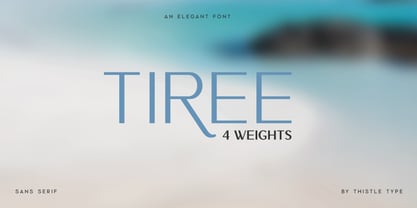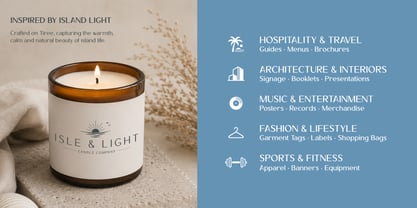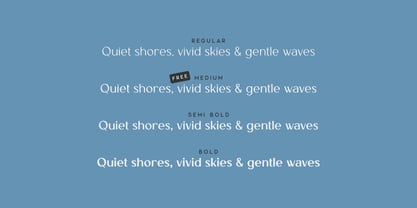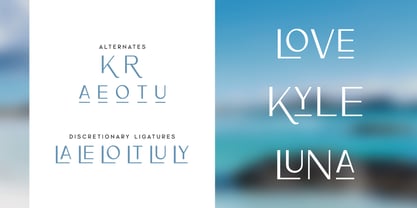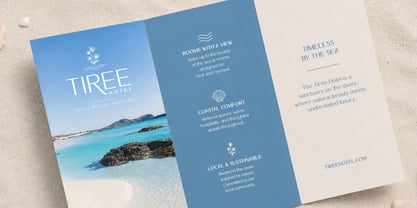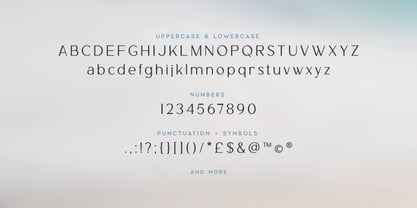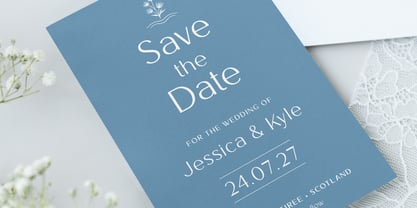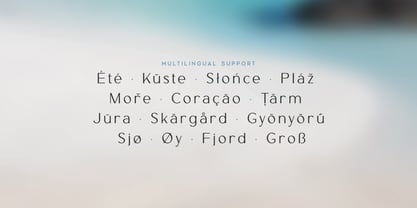
Tiree
Tiree is an elegant san serif font inspired by the white beaches and wide open skies of Scotland’s western isles. Designed for timeless typography, it’s equally at home on wedding stationery, luxury branding, brochures, editorial layouts, and sophisticated logos.
Its graceful letterforms balance classic proportions with subtle contrast, creating a typeface that feels calm, refined, and effortlessly elegant. Inspired by the quiet beauty of the Isle of Tiree, it brings a natural warmth to designs without feeling overly decorative.
Tiree also includes a collection of discretionary ligatures, giving you the freedom to add extra character to headlines, logos, and names, while keeping body text clean and highly readable.
• Elegant san serif design with a timeless, refined feel
• Perfect for wedding stationery, luxury branding, brochures, editorials, and invitations
• Includes beautifully crafted discretionary ligatures
• Available in Regular, Medium, Semi Bold and Bold weights
• Supports European languages